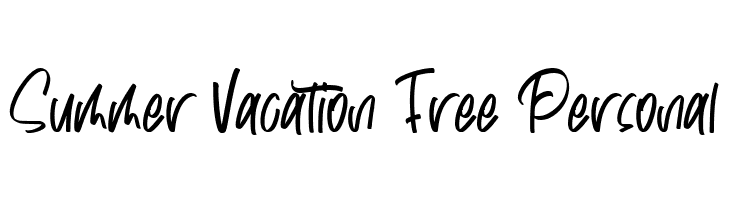
A fluid and elegant handwritten font with dynamic letterforms.
A bold, playful handwritten font with dynamic strokes and a casual style.
A lively and expressive script font with flowing, connected letterforms.
An elegant, flowing script font with ornate uppercase and smooth lowercase letters.
A dynamic handwritten font with fluid, expressive strokes.
A bold, energetic script font with fluid strokes and a playful style.
A bold, expressive handwritten font with dynamic strokes and playful flair.
A graceful and fluid script font with elegant cursive strokes.
A lively, handwritten script font with bold strokes and playful curves.
A bold, playful handwritten font with rounded, thick strokes.